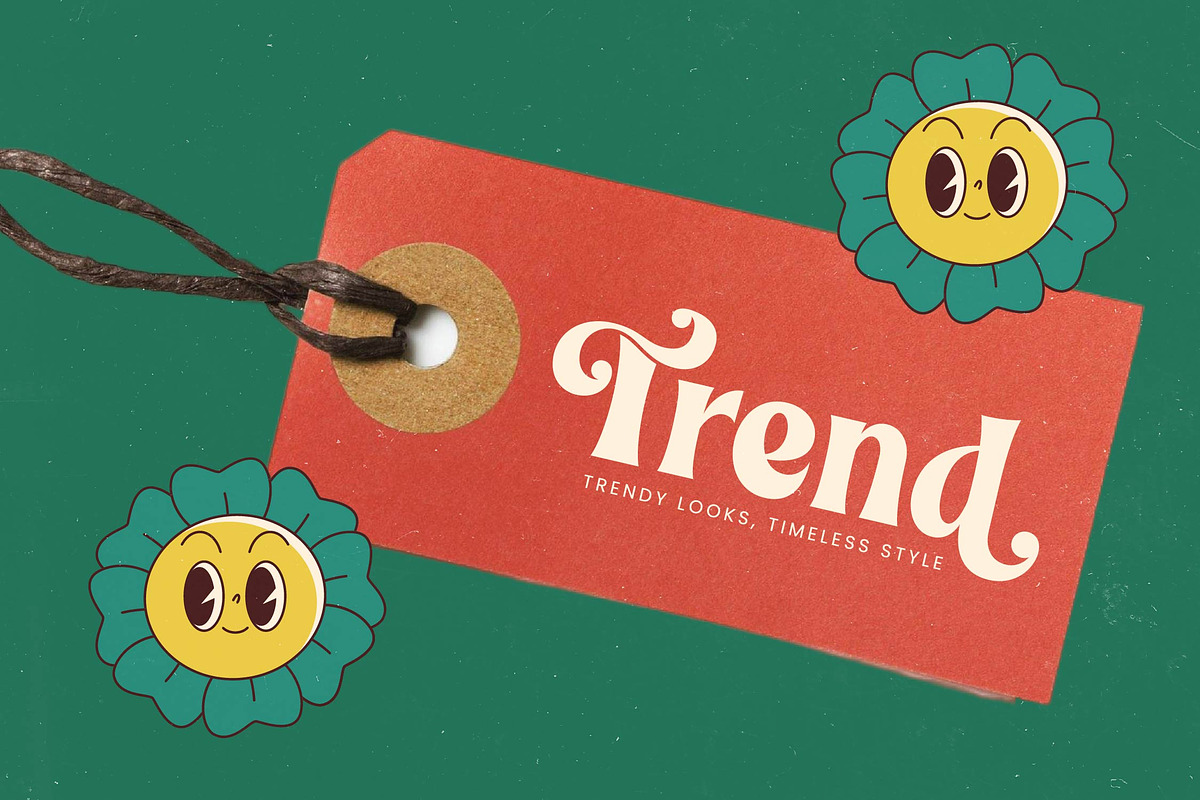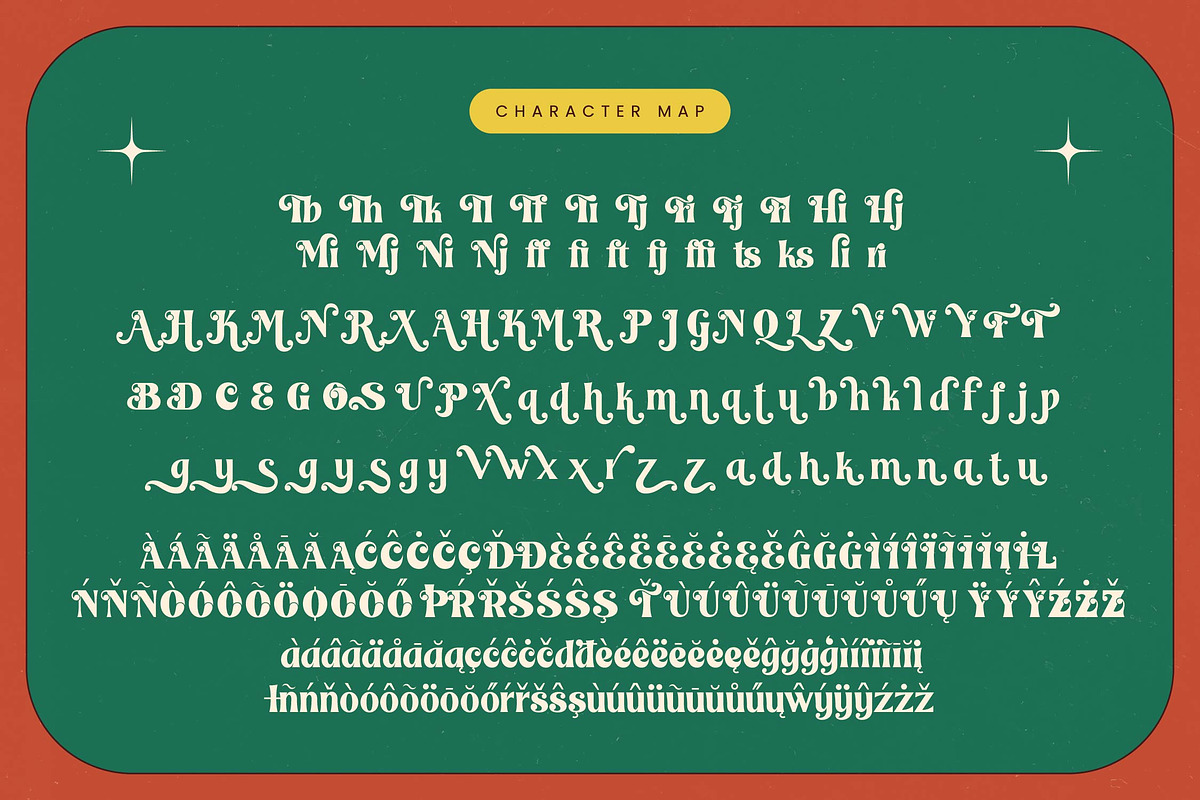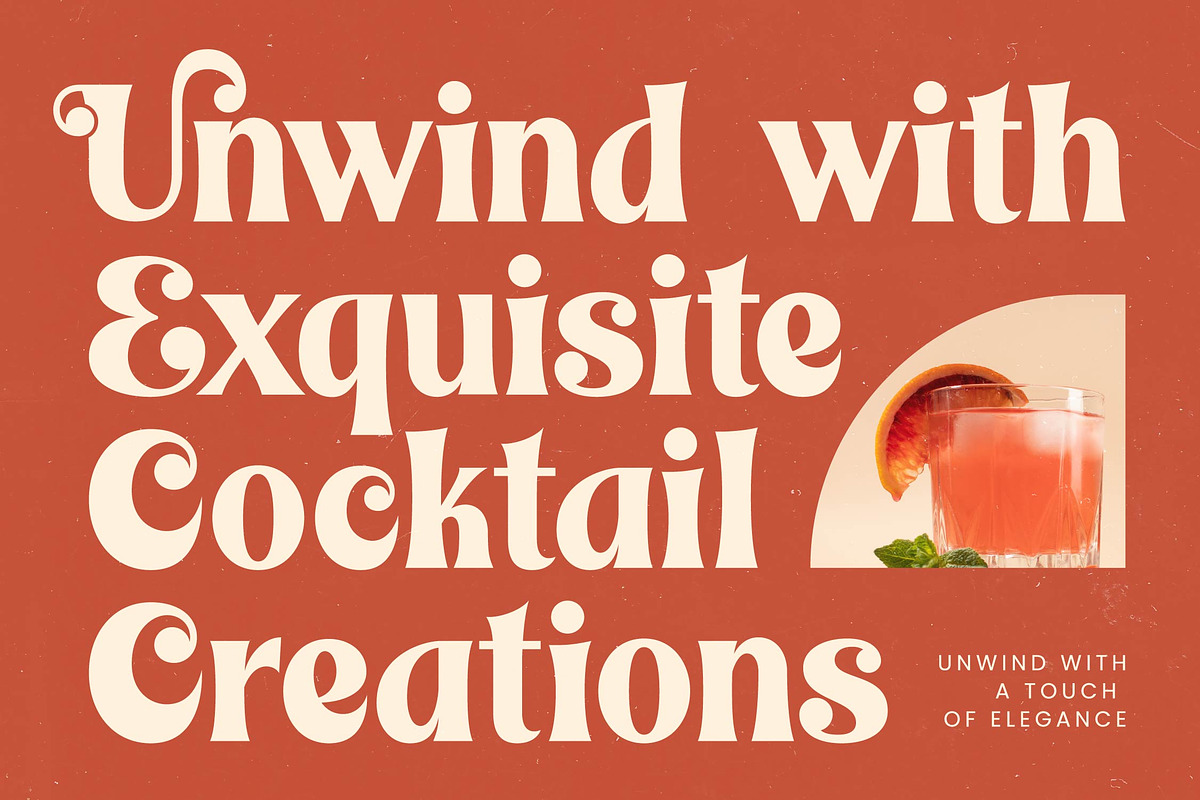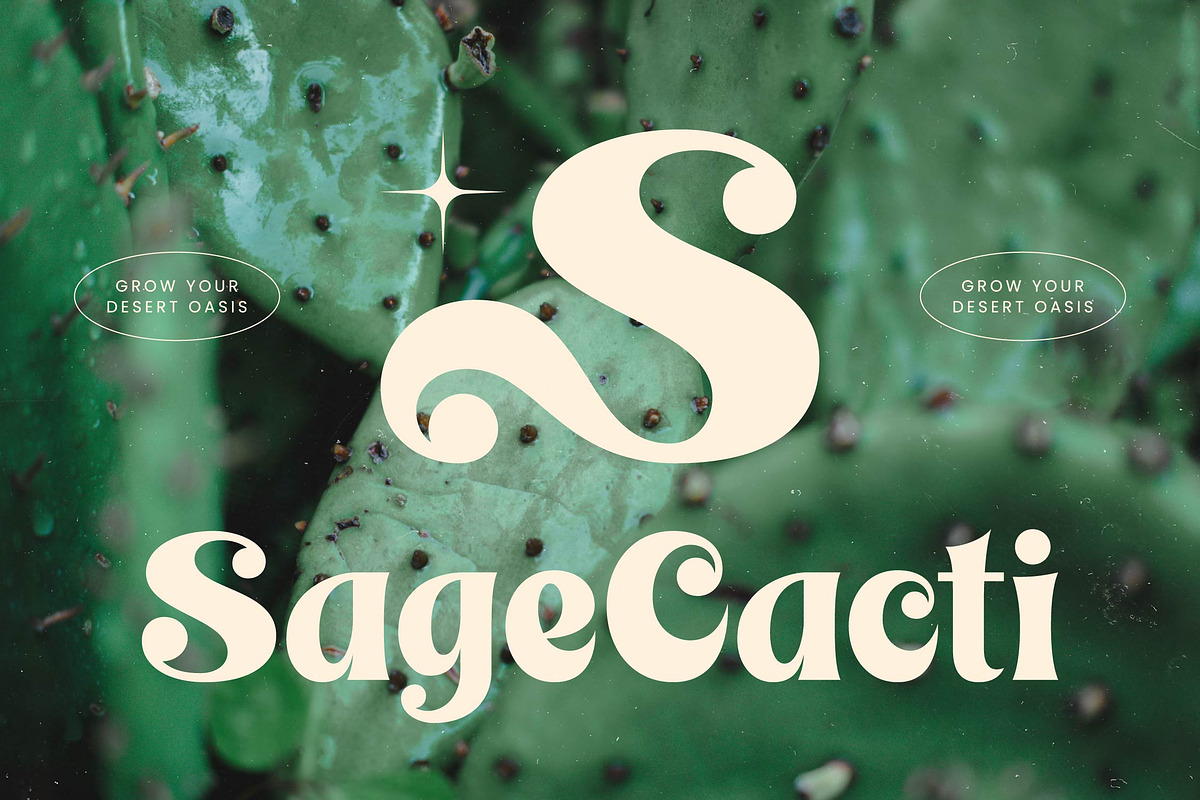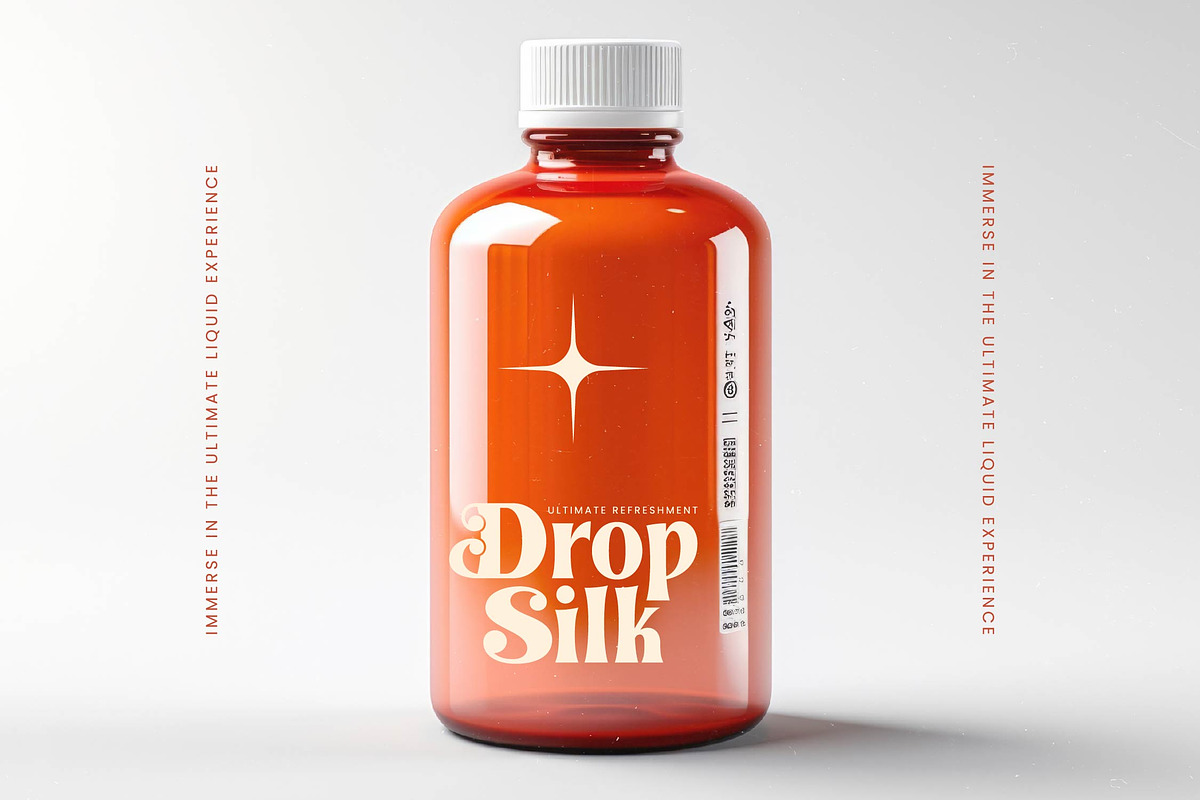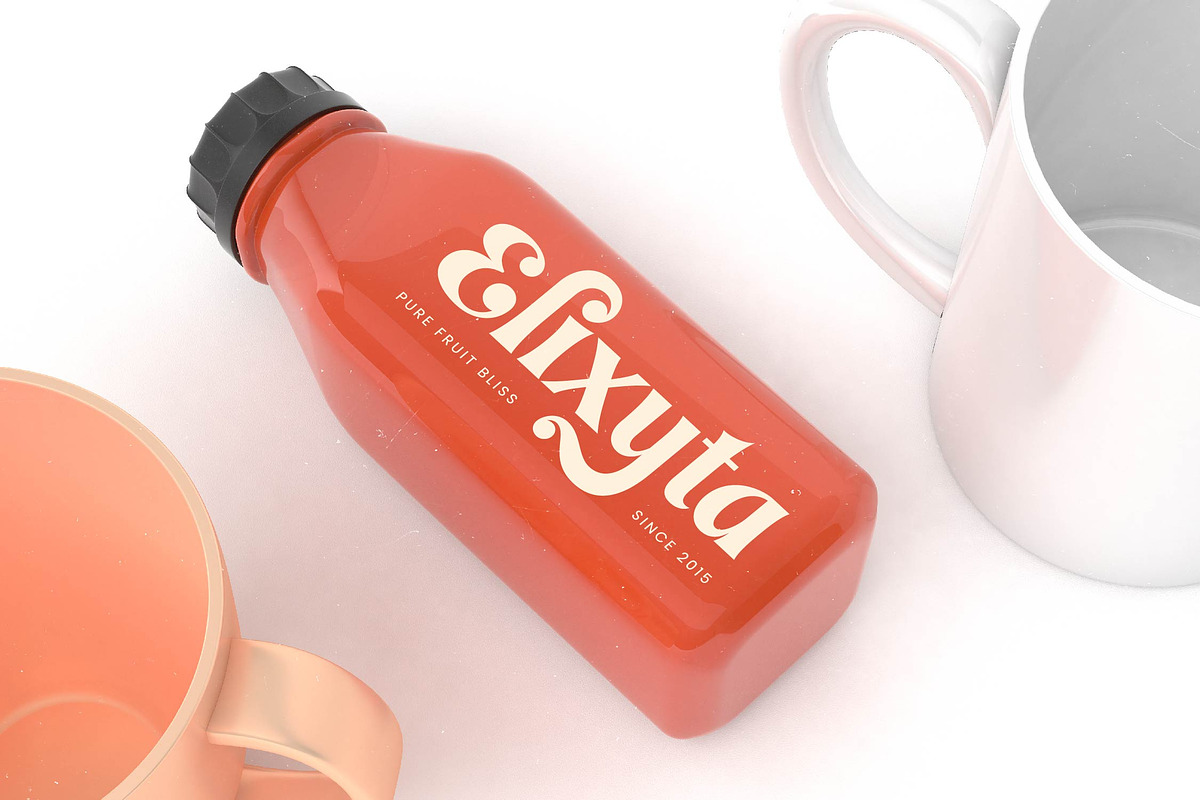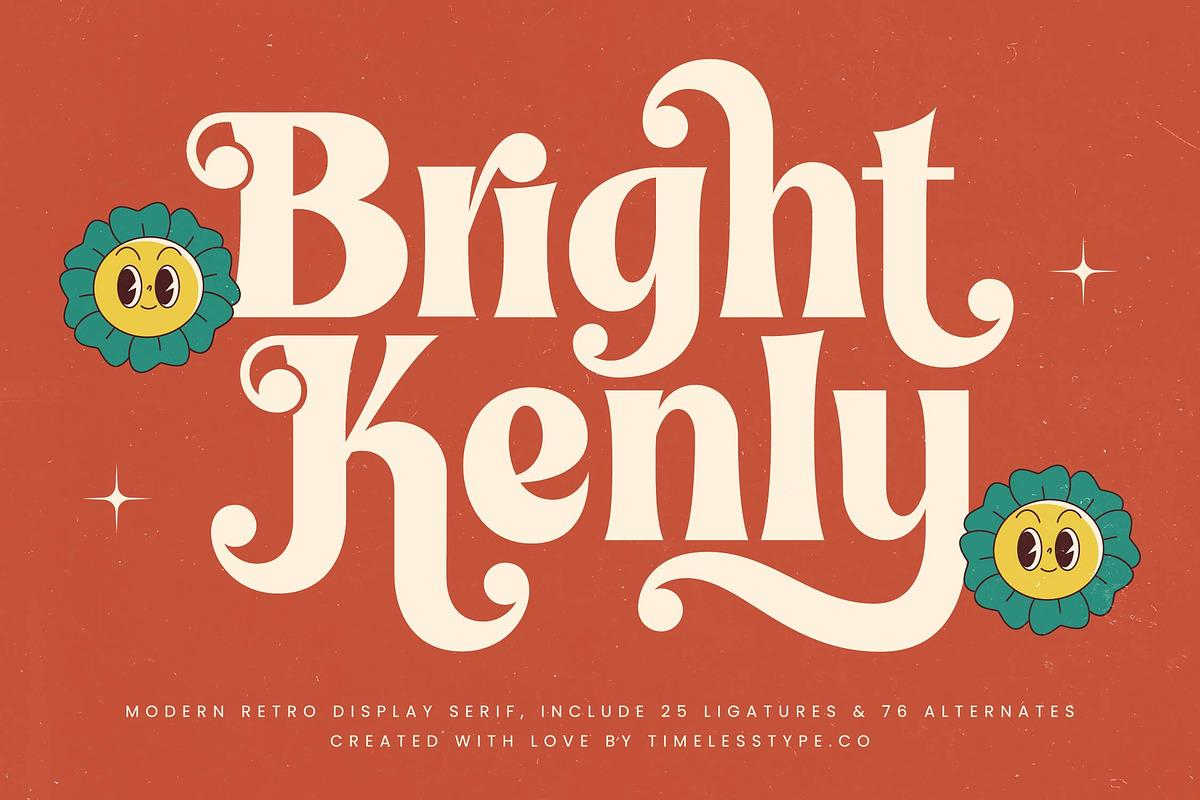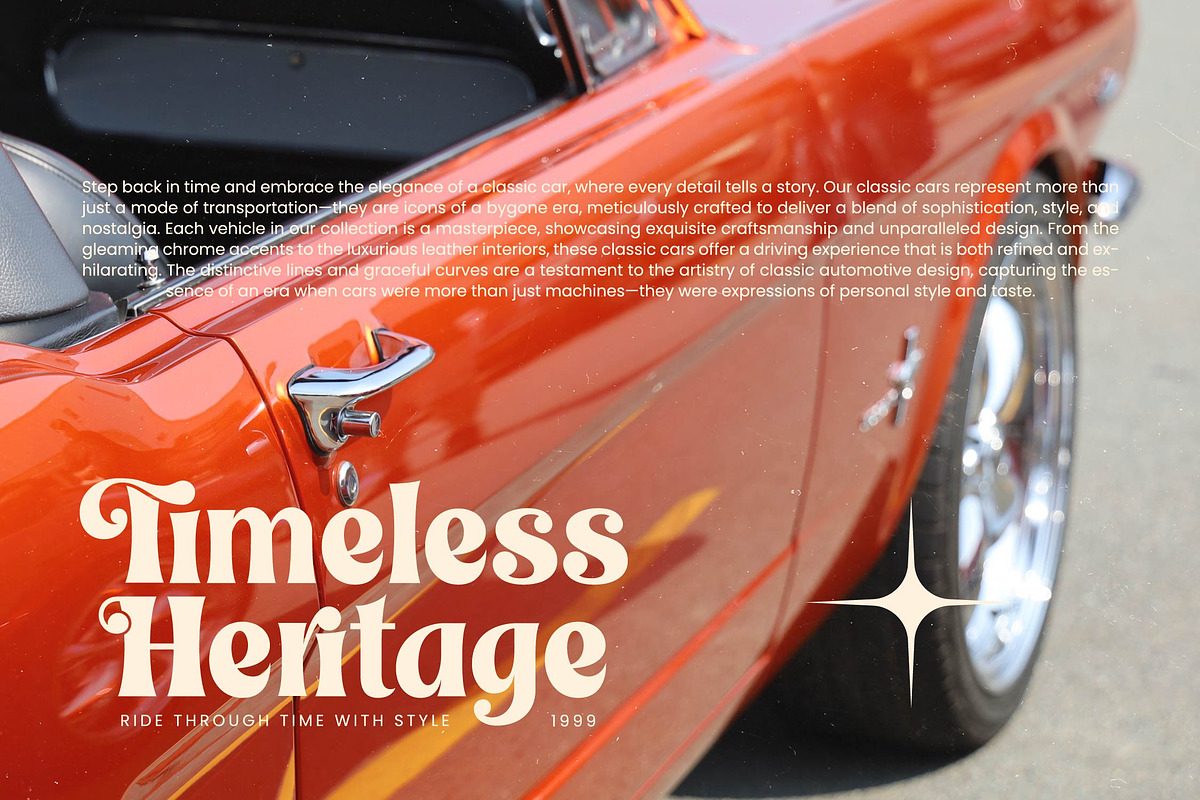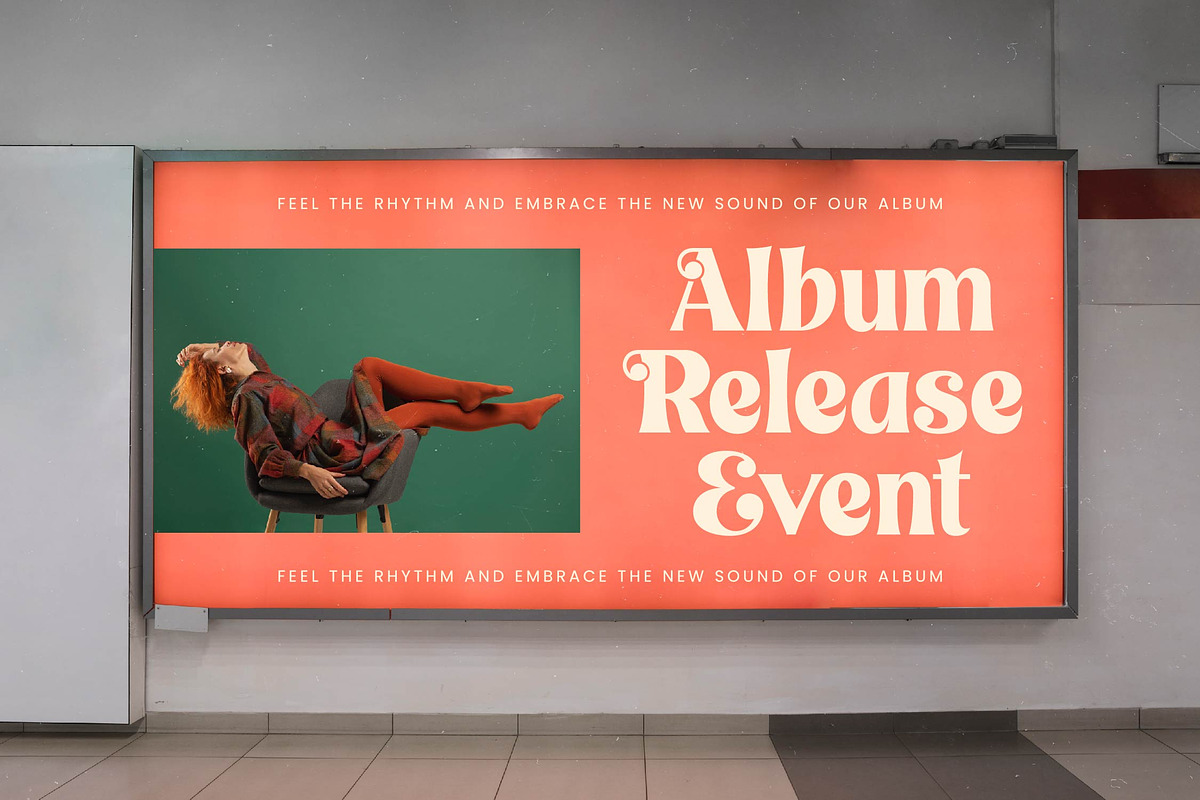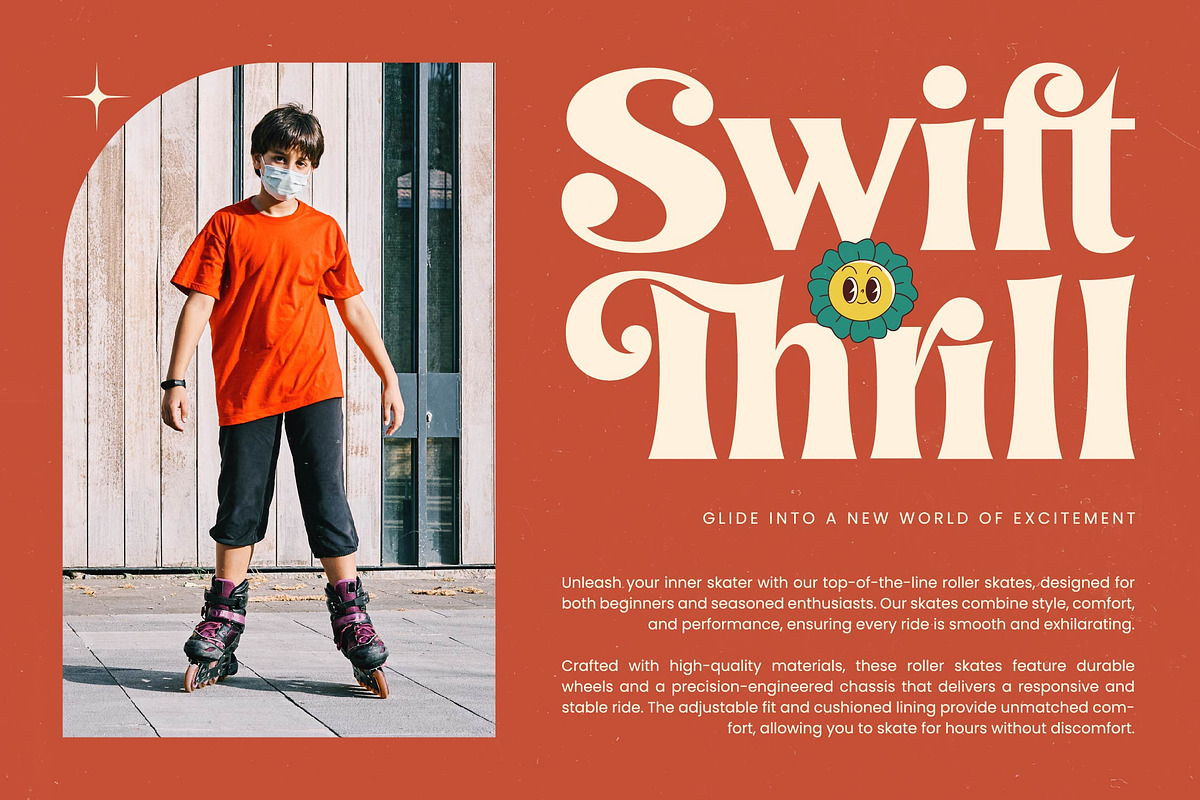
Bright Kenly Modern Retro Serif
Bright Kenly - Modern Retro Display Serif , from Timelesstype.Co , Step into a world where sunshine and nostalgia collide with the captivating charm of Bright Kenly. This font evokes a sense of joy and warmth that instantly elevates any creative project with its spirited soul.
Inspired by the golden era of the 1970s, its curves reflect the rhythmic flow of vintage record covers and the effortless cool of disco-age aesthetics. It captures an atmosphere of freedom and playful elegance that feels both classic and fresh.
This modern serif display choice brings a unique branding impact through its high-contrast serif details and luxury typography flair. It functions as a sophisticated editorial font that commands attention while maintaining a soft, approachable personality.
Perfectly aligned with the current modern serif trend, this typeface stands out in the world of editorial display fonts through its character-driven typography. It satisfies the growing demand for designs that feel hand-crafted and authentic.
Its versatile nature makes it the ideal choice for high-end logo design and comprehensive branding systems that require a touch of retro magic. It performs beautifully in editorial layouts, packaging concepts, wedding invitations, and fashion lookbooks.
Packed with creative potential, the set includes extensive ligatures, unique alternates, and elegant swashes to customize every word. Full multilingual support and international characters ensure global accessibility for your next premium masterpiece.
- Ligature 25 Alternate 76